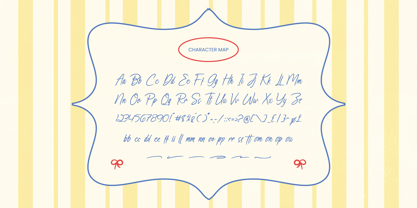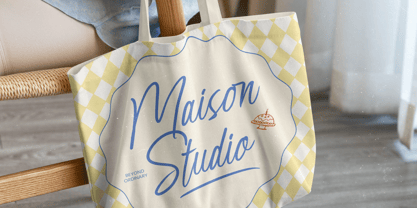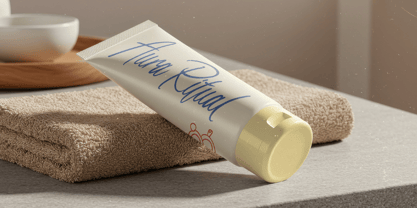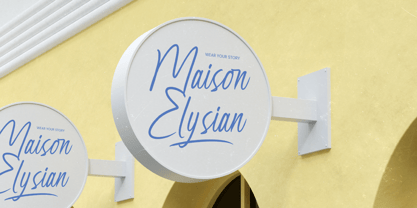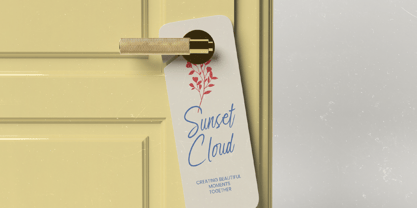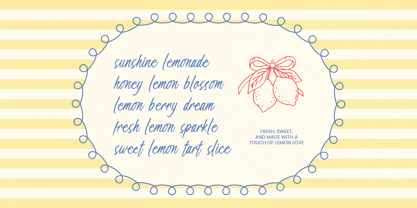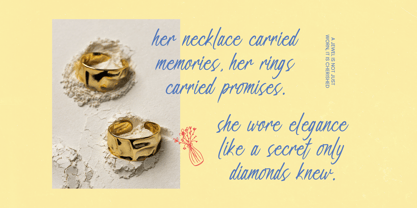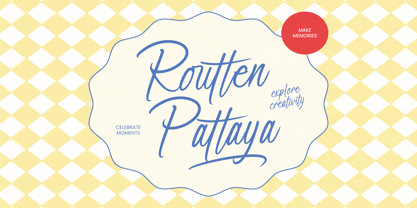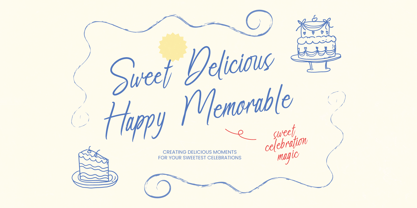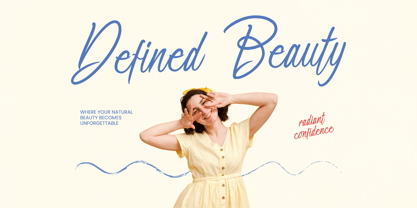
Routten Pattaya
by Stylishtype Studio
The Routten Pattaya Font Family was designed by Heru Utama Putra and published by Stylishtype Studio. Routten Pattaya contains 2 styles and family package options. More about this family
Elevate your creative vision with a typeface that embodies effortless sophistication and organic charm. Routten Pattaya - Modern Handwritten is a masterclass in contemporary script design, blending natural fluidity with a polished, professional finish. Its authentic stroke movements and graceful letterforms provide a genuine hand-drawn feel that resonates with audiences seeking intimacy and elegance. By integrating a refined monolinear aesthetic, this font captures the essence of modern calligraphy, making it a premier choice for designers looking to inject personality into their visual identity projects.